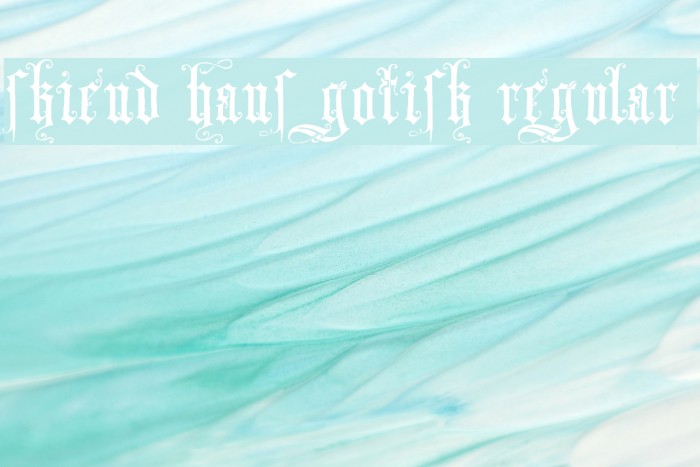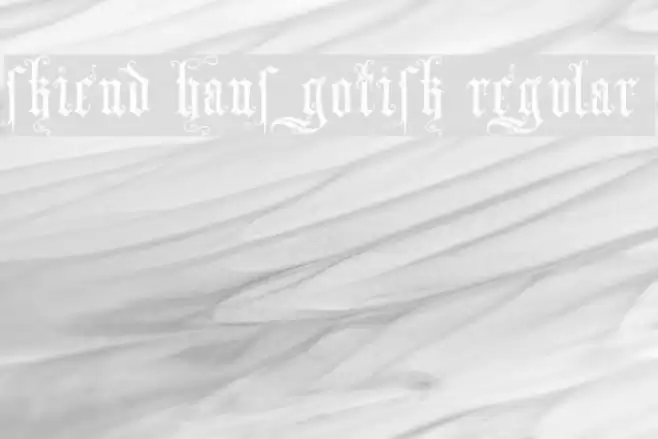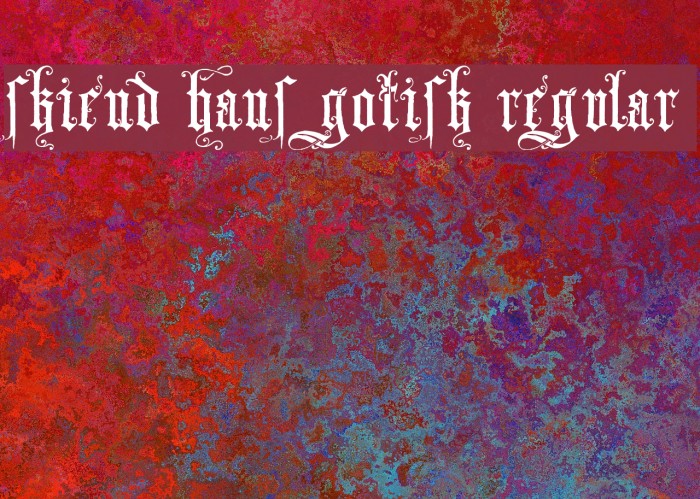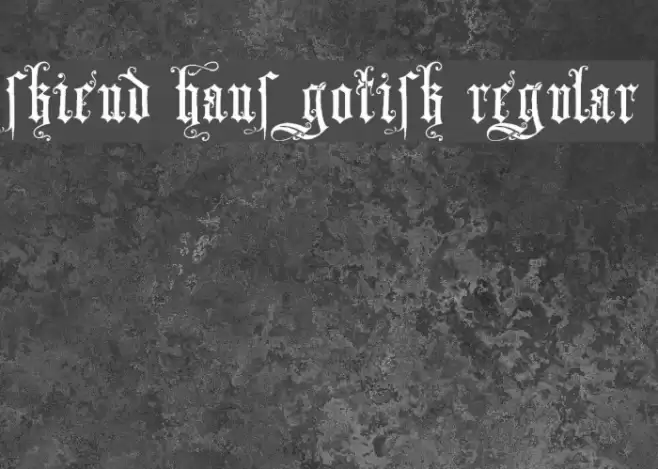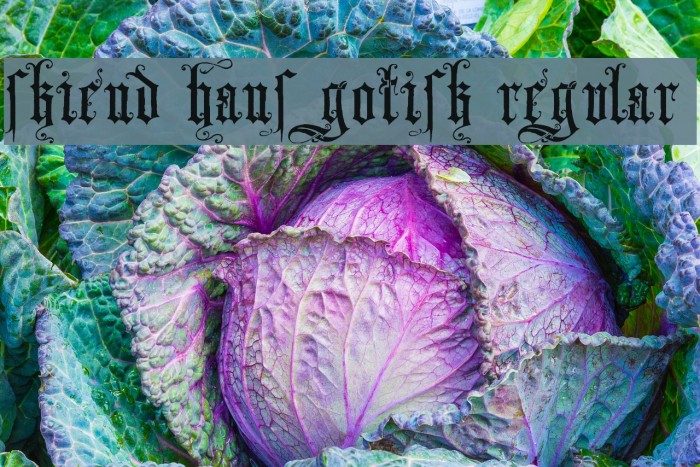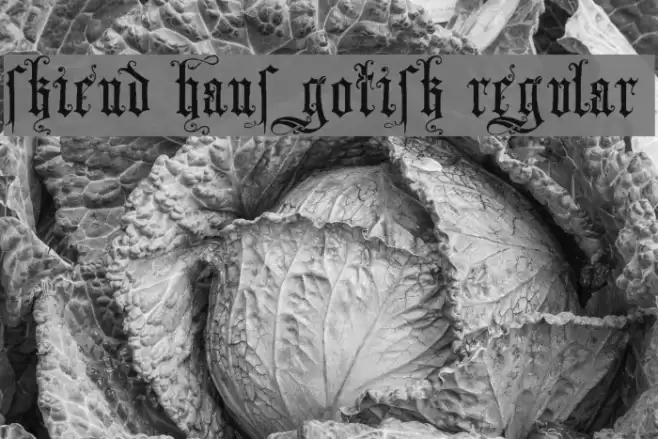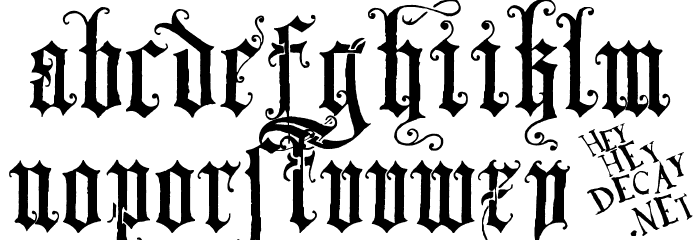
Skjend Hans Gotisk Regular Font
Skjend Hans Gotisk Regular Description
This font is a striking example of Blackletter style, characterized by its intricate and ornate letterforms. The design features sharp, angular lines with elaborate swashes and flourishes, giving it a highly decorative appearance. The uppercase letters are particularly elaborate, with extended vertical strokes and embellishments that evoke a sense of historical elegance. The lowercase letters maintain a consistent style, with a slightly condensed form that enhances readability while preserving the overall aesthetic. This font exudes a medieval or Gothic feel, making it ideal for projects that require a touch of historical or dramatic flair.
| Width | Condensed |
| Overall Style | Vintage |
| Use Case | Logos, Headlines, Decorative text |
| Proposed Projects | Ideal for historical documents, wedding invitations, book covers, or branding that requires a medieval or dramatic touch. |